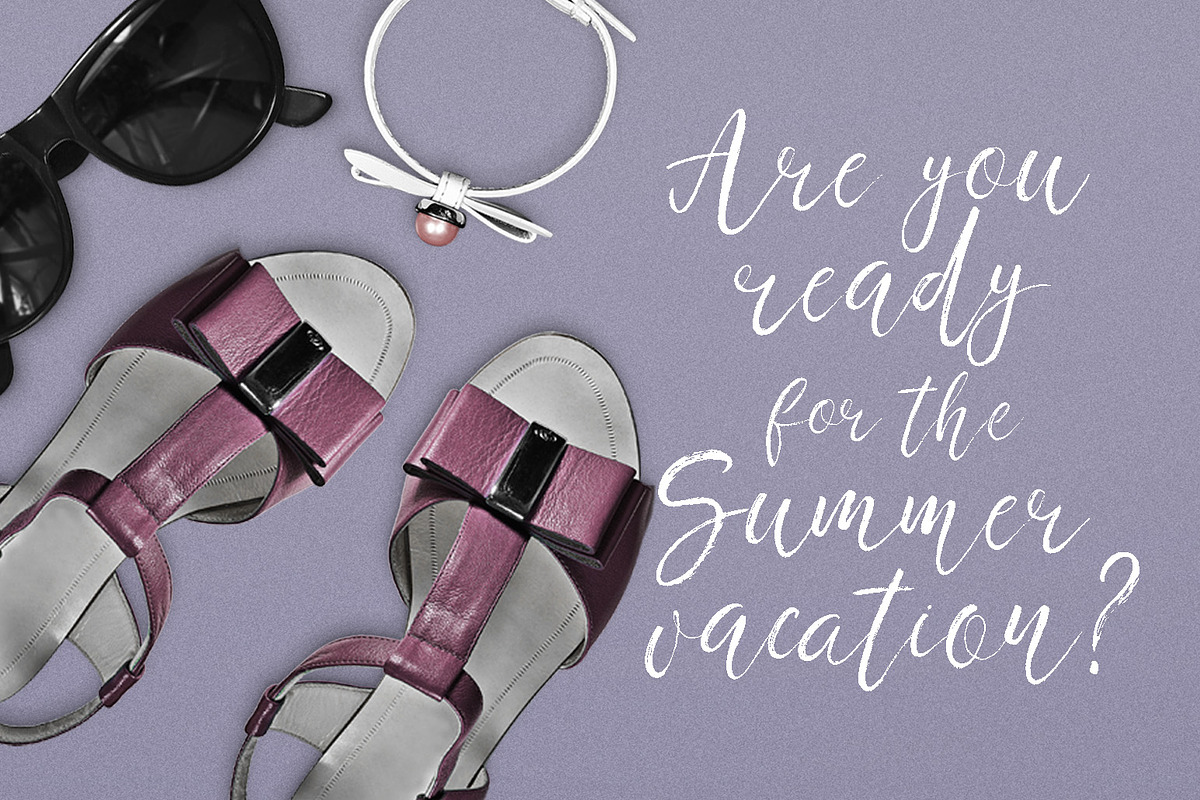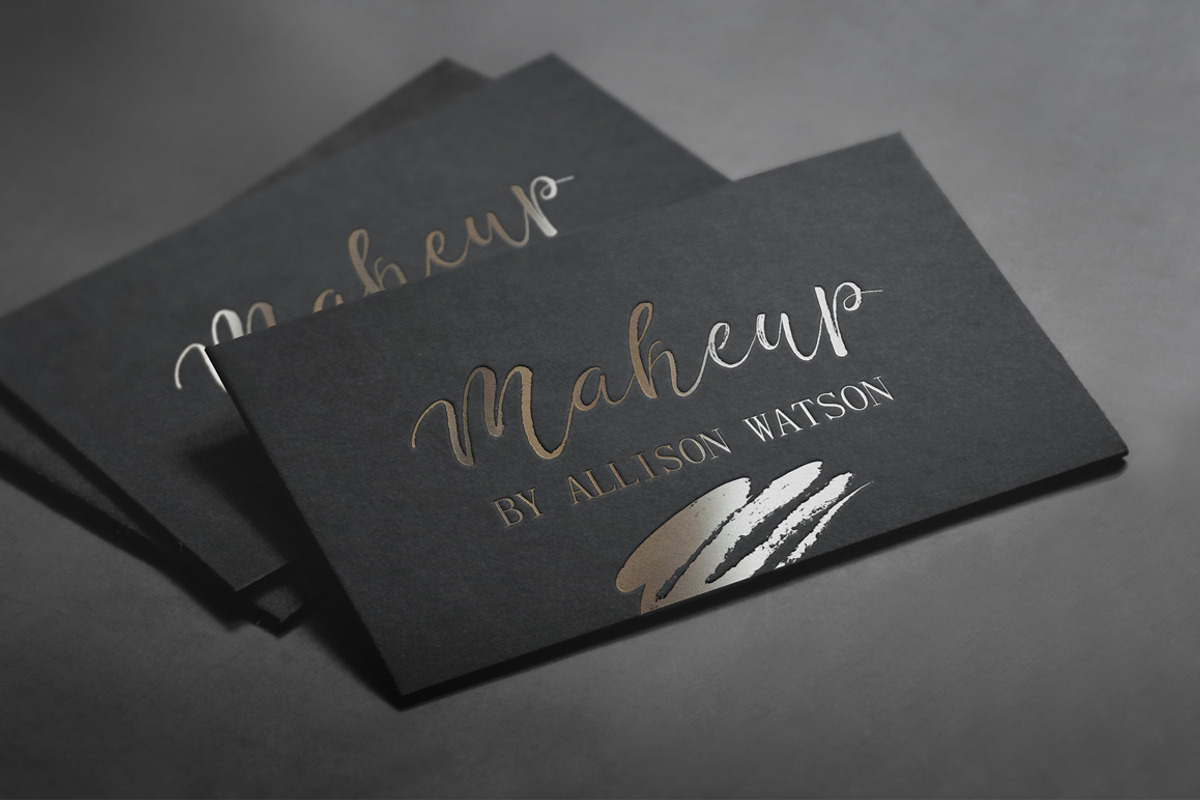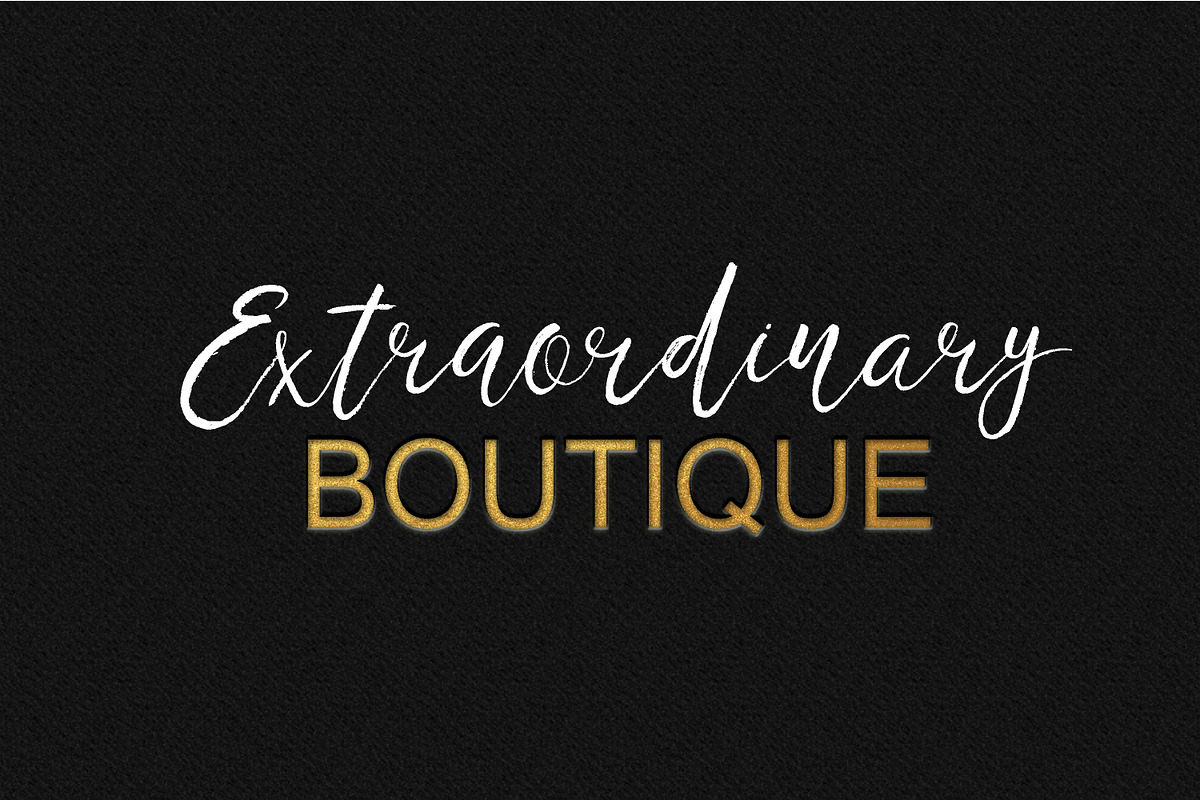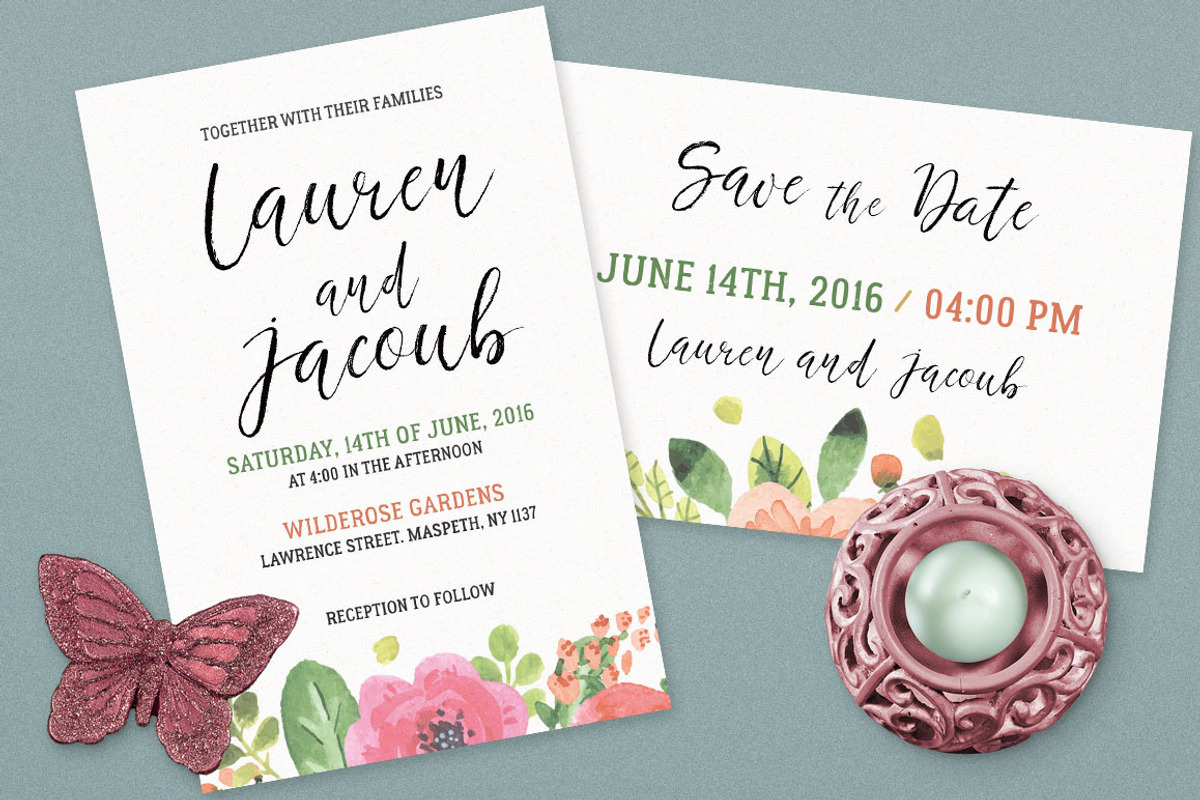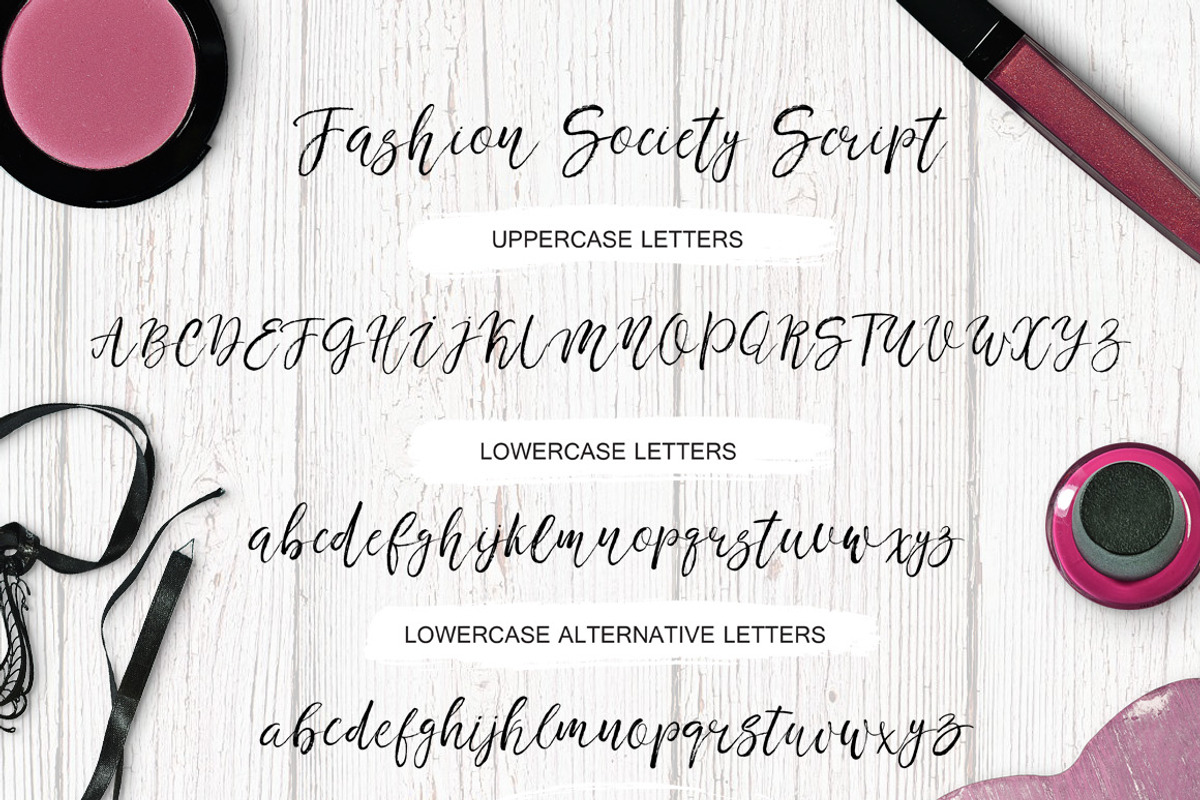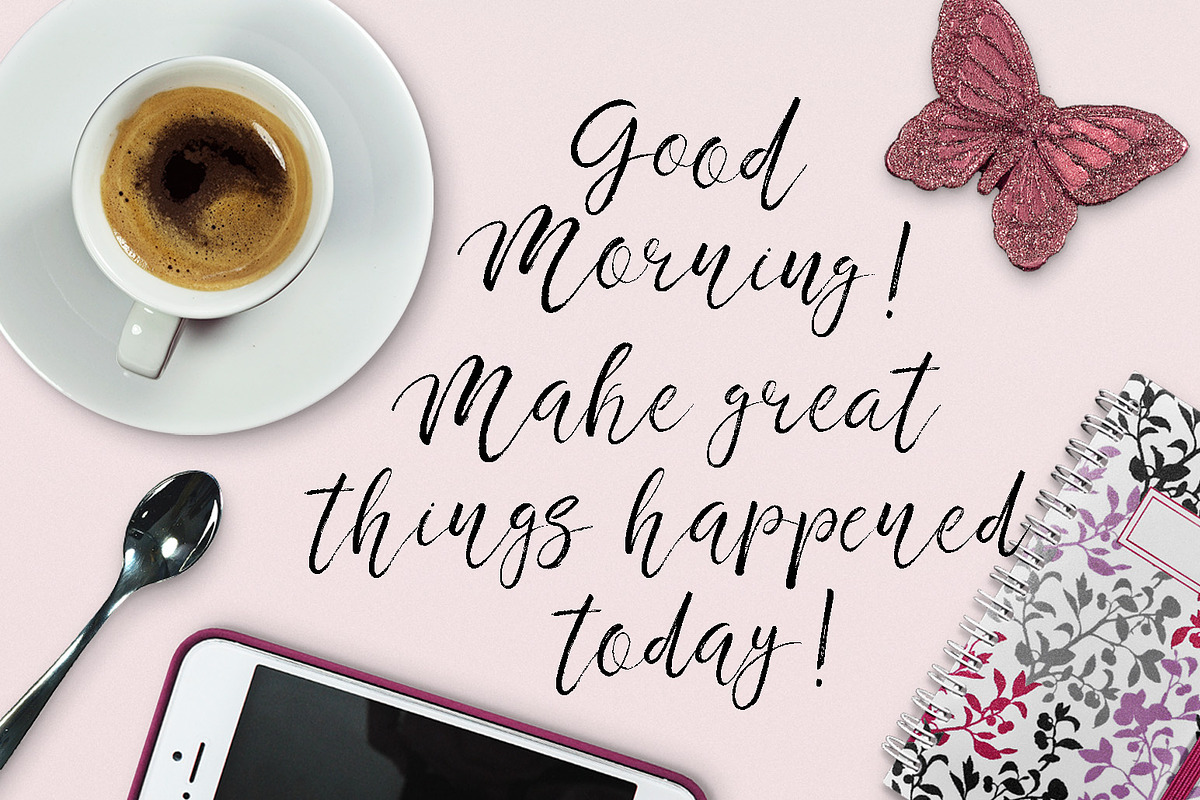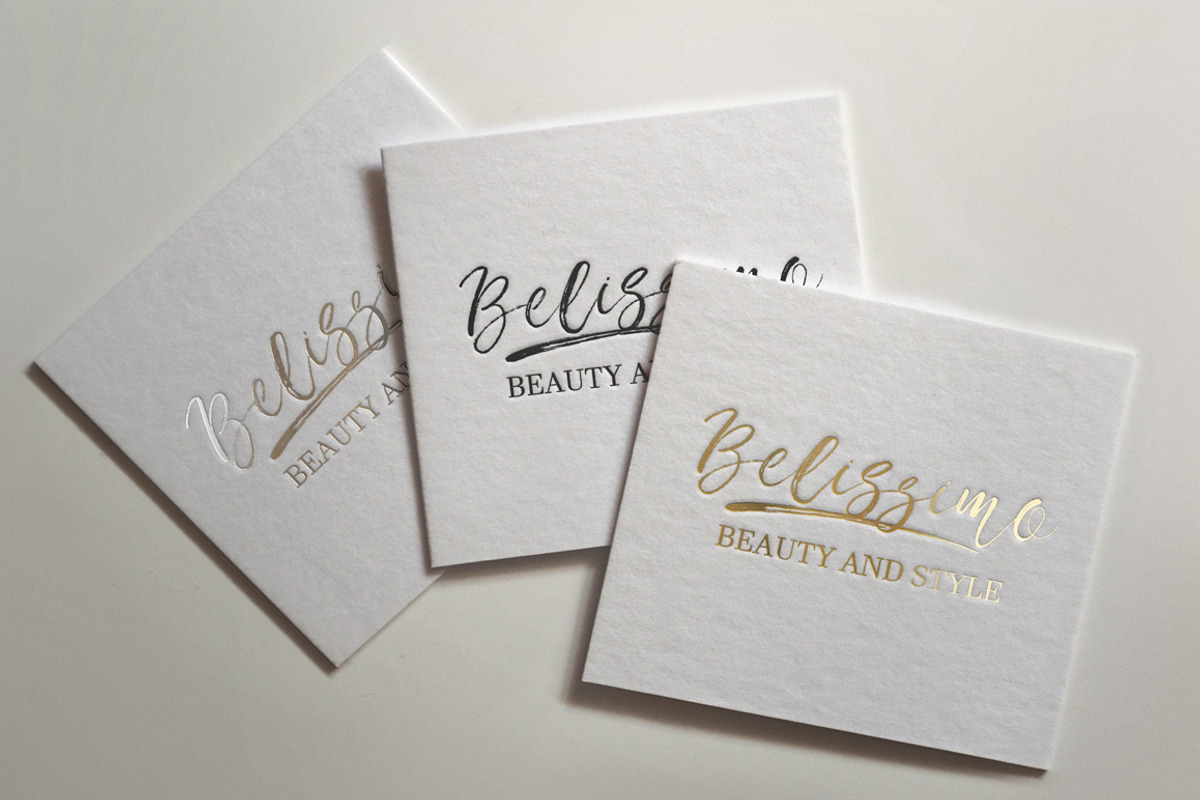
Fashion society handwritten font
Fashion society handwritten font by Pink Ocean is a font selected for branding, posters, packaging, typography.
Why Fashion society handwritten font is worth a look
Fashion society handwritten font by Pink Ocean fits naturally into Branding, posters, packaging, typography.